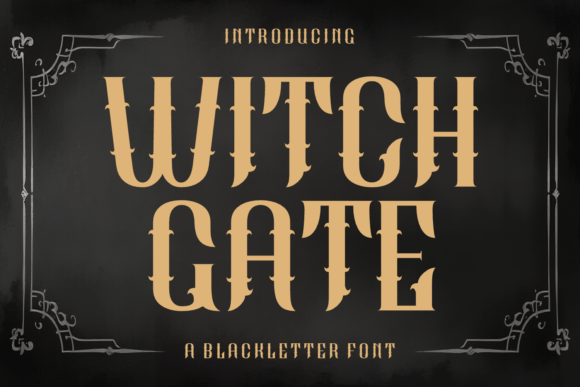
Witch Gate: A Gothic Typeface for Magical Projects
Fonts are more than just letters—they're the first impression of your message, shaping how it's perceived before a single word is read. Witch Gate, a hauntingly elegant blackletter font, stands out with its ornate strokes and subtle curves that evoke an old-world magical aesthetic. Whether you're crafting a book cover, designing an occult poster, or branding a fantasy product, Witch Gate offers a unique visual identity steeped in mystery and darkness.
What Makes Witch Gate Unique?
Blackletter fonts have long been associated with medieval manuscripts, horror themes, and mystical imagery. Witch Gate takes this legacy further by blending traditional gothic elements with a touch of supernatural charm. The characters appear as if they were carved from ancient stone or written by candlelight on aged parchment. This font isn't just about style—it's about storytelling through typography.
Its design features exaggerated serifs, flowing ligatures, and a consistent weight that gives it a strong presence without being overly complex. These details make Witch Gate ideal for projects where atmosphere is key. The font works particularly well in print and digital formats where high contrast and dramatic flair are needed to capture attention.
Why Different Audiences Care About Witch Gate
The appeal of Witch Gate lies in its versatility across creative fields. For some, it’s a tool; for others, it’s inspiration. Here’s how various professionals and enthusiasts might find value in this typeface:
For Book Cover Designers and Authors
If you're an author working on a fantasy or horror novel, the right font can make all the difference. Witch Gate brings an immediate sense of intrigue and enchantment to titles and covers. Its mysterious appearance can help signal genre to potential readers, making it a powerful visual cue for niche audiences.
Example: A fantasy book titled "The Coven of Shadows" uses Witch Gate for the title and a clean sans-serif like Helvetica for body text, creating a striking contrast between magic and modernity.
For Event Planners and Occult Enthusiasts
Hosting a themed event or publishing content for a spiritual or occult audience? Witch Gate can give your materials an authentic feel. From invitations to posters, the font aligns perfectly with esoteric aesthetics, helping to build anticipation and immersion.
Occult events, such as a Halloween gathering or a tarot reading workshop, benefit from visuals that match their vibe. Witch Gate provides that eerie elegance without feeling over-the-top.
1. Use it for headers in promotional flyers.
2. Incorporate it into logos for spiritual brands or covens.
3. Pair it with hand-drawn illustrations for a cohesive look.
One planner used Witch Gate for a haunted house tour invitation, which led to higher attendance due to the eye-catching and thematically appropriate design.
For Branding and Marketing Professionals
Branding is about evoking emotion and building identity. In industries like fantasy gaming, witchcraft products, or horror-themed merchandise, Witch Gate can become a signature element of your brand’s personality.
Marketers often prioritize speed and impact. With Witch Gate, you can quickly create assets that resonate with a specific demographic—those drawn to mysticism, gothic culture, or dark fantasy. Its legibility at larger sizes ensures it remains effective even when used prominently in logos or banners.
Example: A boutique selling handmade spell jars used Witch Gate in their logo, instantly signaling their niche and gaining traction among customers who associate the font with authenticity and tradition.
For Educators and Content Creators
Educators teaching graphic design, typography, or media studies can use Witch Gate as a case study in historical revival and modern adaptation. It demonstrates how classic styles can be reimagined for contemporary use while maintaining cultural resonance.
Content creators, especially those in YouTube or podcast niches related to history, mythology, or pop culture, might incorporate Witch Gate into their thumbnails or titles to enhance visual appeal. The font’s uniqueness can serve as a conversation starter, drawing viewers in with its enigmatic character.
One educator included Witch Gate in a lesson on symbolism in design, using it to discuss how fonts can carry thematic weight beyond mere communication.
For Small Business Owners and Freelancers
As a small business owner, your branding needs to stand out. If your products or services are rooted in the arcane, Witch Gate can add a layer of sophistication and exclusivity to your packaging or website headers. It's not just decorative—it helps tell your story.